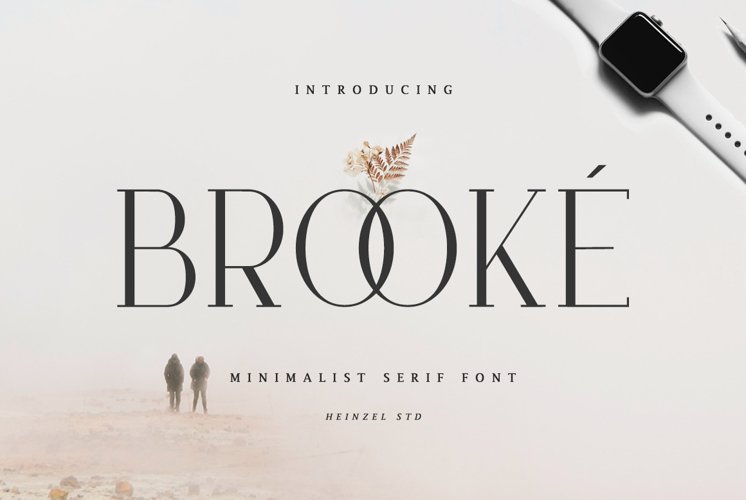
Created By Heinzel Std
Brooké Serif / Best Seller - Modern Serif, Logo Font
BEST SELLER SERIF
Brooké is a neat yet elegant serif font. Suitable to a wide variety of designs due to its neat and simple style, Brooké has the potential to become your favorite go-to font, no matter the occasion!
Brooké - Modern Serif and minimalist character! Brooké perfect use for logos, print, collage, body text, and more! It looks minimalist a really cool modern-meets-vintage look to any piece.
1. Brooké, Regular and Italic version, serif font (ALL CAPS), numerals and more punctuations.